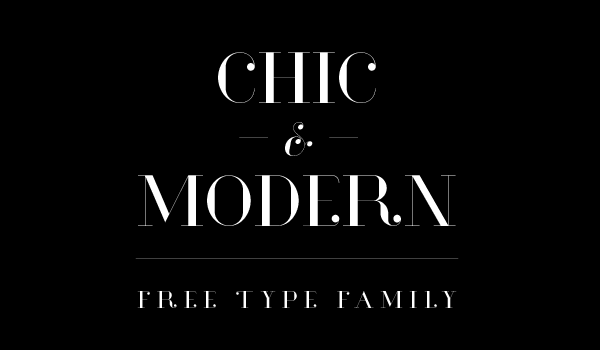
Katana
is an elegant modern font, strong nuances of circles as the foundation that comes with unique characteristics and high quality details. this typeface fonts are suitable for most design needs, the font is best used in large font sizes (such as in advertisements, labels, brochures, posters.. etc) making it a perfect choice for designers.